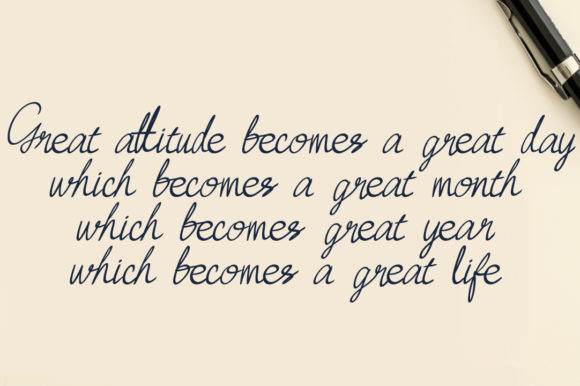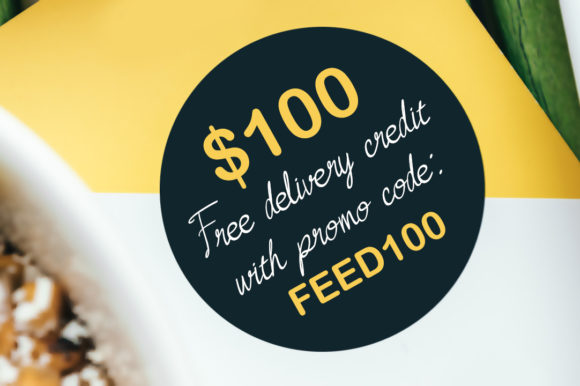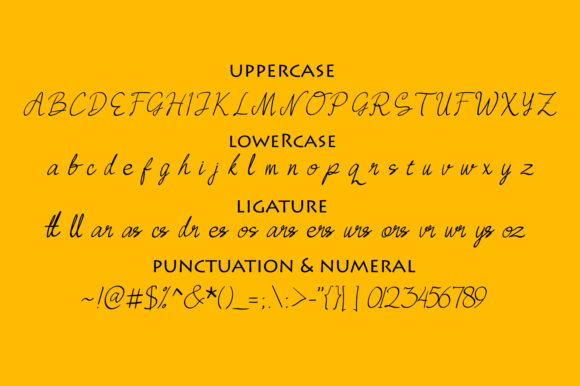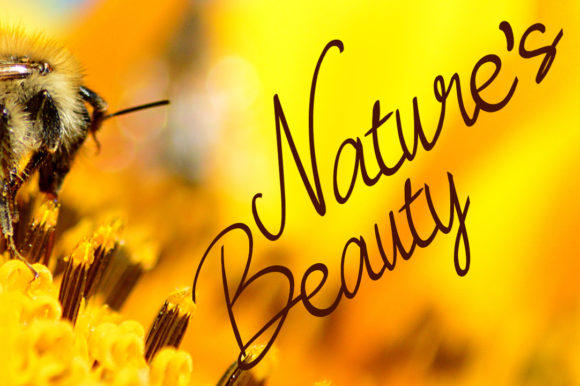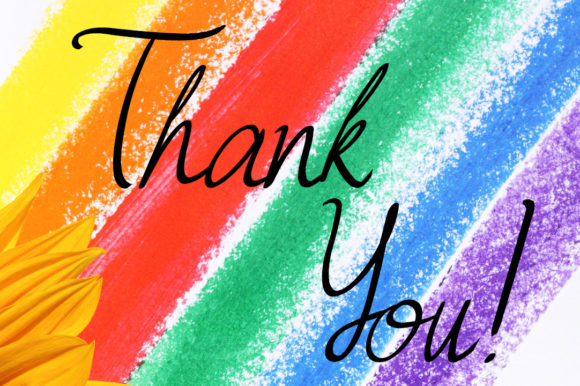
Queen Bee Font
About Queen Bee Font
Queen Bee is a casual, fun handwritten font, created by using a brush pen. Clean and a little bit quirky, this font is the perfect fit for all of your logos, branding, social media, and crafty DIY projects.